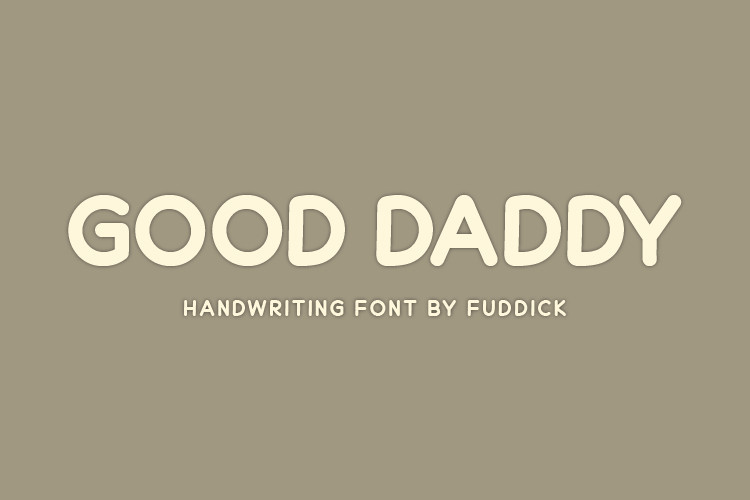
Good Daddy Font
Good Daddy Display Font,  Ideal for logos, handwritten quotes, product packaging, header, poster, merchandise, social media & greeting cards.